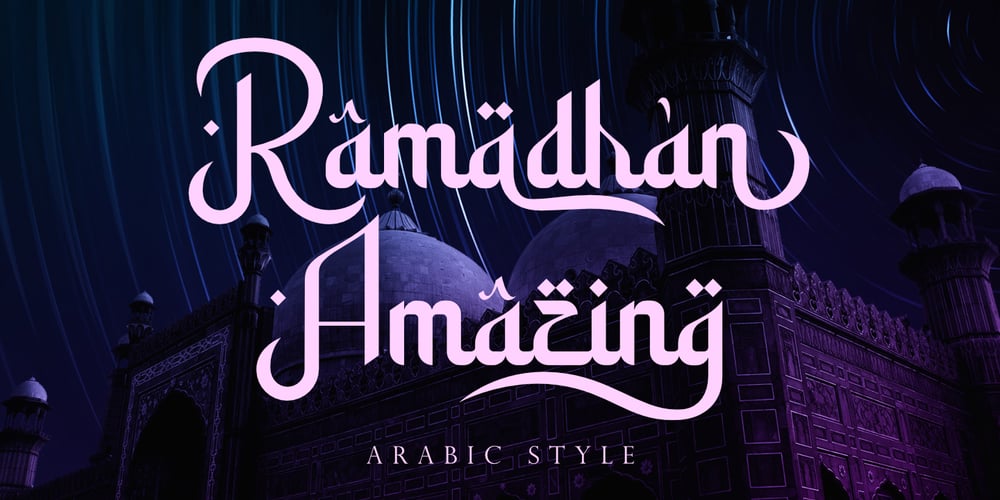
Ramadhan Amazing Font Family was designed by Saiful Anwar and published by Sealoung. Ramadhan Amazing contains 1 styles and family package options. Ramadhan Amazing is Arabic-style font. Designed with digital flat pen and gothic typography technique that gives the letters an elegant look. Equipped with an Arabic character display. This font is very useful for designing all kinds of graphic designs related to Islamic Content. Ramadhan Amazing font is suitable for branding, logotype, apparel, T-shirt, Hoodie, product packaging, quotes, flyers, posters, book covers, advertising, etc.What’s Included?- Open support type- Multilingual support- PUA encoded- Features: uppercase, lowercase, numbers, punctuation, multilingual, alternative, and stylish set.- Accessible in the Adobe Illustrator Glyphs panel, or under Stylistic- Alternative in OpenType menu Adobe Photoshop, Adobe InDesign, Corel Draw, even works in Microsoft WordPlease message me if you have any questions. We are happy to help you.